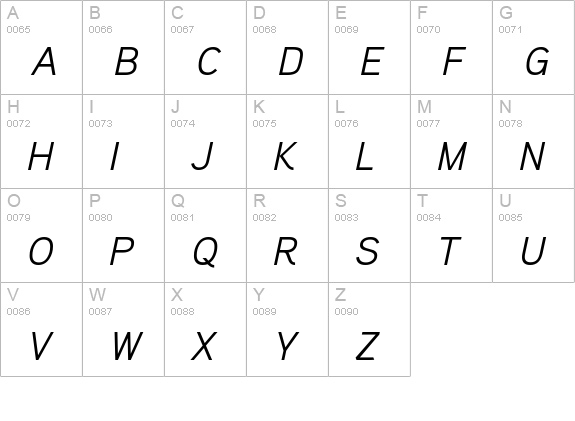
Aaux ProRegular Italic SC is a distinctive, italic variant in the Aaux typeface family \xE2\x80\x94 well suited to design and typography projects.
The Aaux Pro Regular Italic SC font is a sleek and modern typeface that exudes sophistication and elegance. Its slanted design adds a touch of uniqueness while maintaining readability and professionalism. This versatile font is perfect for a wide range of design projects, from branding and advertising to editorial and web design. Best of all, the Aaux Pro Regular Italic SC font is available for free download at FontsMarket.com. With its clean lines and contemporary style, this font is sure to elevate any project and make a lasting impression. Don't miss out on the opportunity to enhance your design work with this stunning typeface, now easily accessible for free.